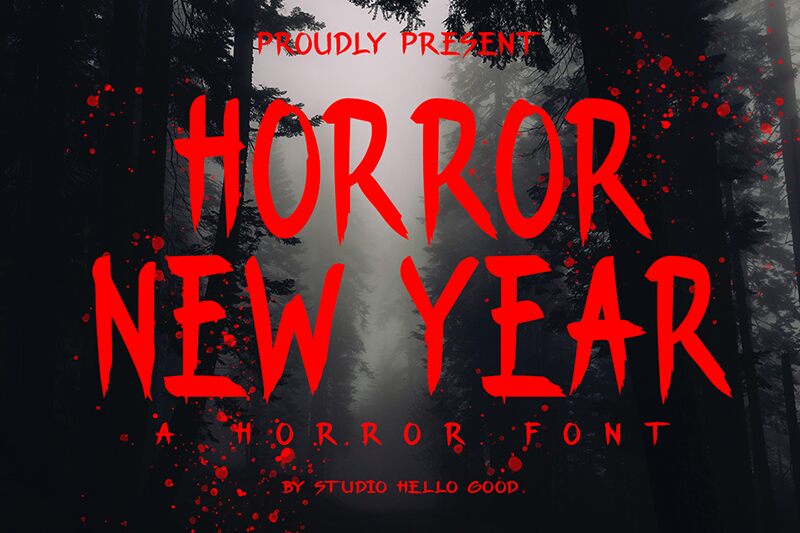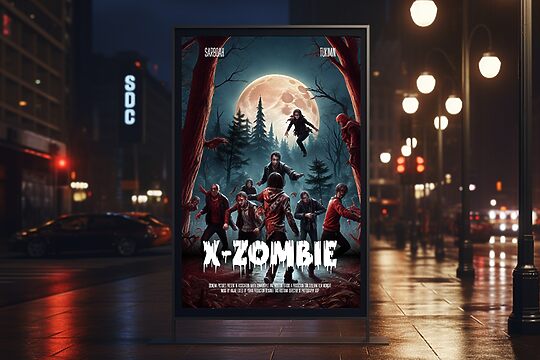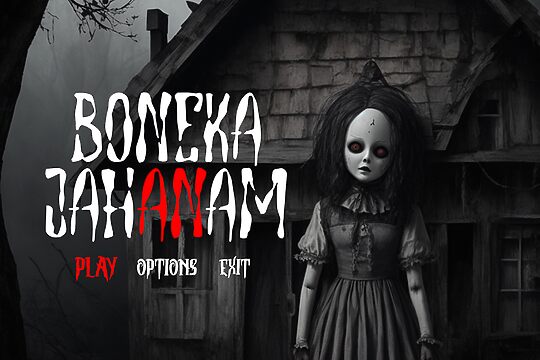
Horror New Year font is a horror-inspired free font designed by Studio Hello Good. This creepy typeface features a grunge-inspired, distressed look which elevates the horror vibe. The eerie look of the font is dynamic with jagged edges which makes it somewhat unsettling — exactly what you’d want a font in this category to do.
Horror New Year font is the ideal font for setting a spooky mood this Halloween. Use it in posters, flyers, merchandise, or goodies’ packaging. It will also work seamlessly with horror-themed or crime movie posters. Imagine it being a part of your cover designs, fashion branding, web, and mobile app projects.